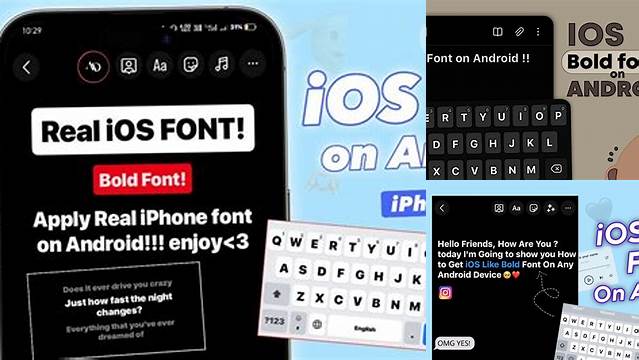
Android: Get IOS Bold Fonts Free!
Hey guys! Ever admired the sleek, bold fonts on your friend's iPhone and wished you could rock that same look on your Android device? Well, you're in luck! This article is your ultimate guide to iOS bold font download for Android free. We'll dive deep into the world of font customization, exploring how you can easily install and apply iOS-style bold fonts on your Android phone, all without spending a dime. Forget those clunky interfaces and confusing tutorials; we're keeping it simple, straightforward, and, most importantly, free! So, buckle up, because we're about to transform your Android's appearance with some seriously stylish typography. Let's get started with everything you need to know about iOS bold font download for Android free and get your phone looking fresh!
Why iOS Bold Fonts on Android? Aesthetics and More!
Alright, let's be real. The visual appeal of a device is a big deal. And those clean, crisp, bold fonts that iOS uses? They're undeniably attractive. But why else would you want to bother with an iOS bold font download for Android free? Well, beyond just the aesthetics, there are some practical reasons too. First, it's about personalization. Your phone is an extension of you, right? Customizing the font is a great way to express your style and make your device feel truly yours. It's like choosing the perfect outfit for your digital self! Also, bold fonts can significantly improve readability, especially for those of us who might have less-than-perfect eyesight or just prefer a clearer display. The bolder strokes make text easier to distinguish, reducing eye strain and making your phone more user-friendly overall. And let's not forget the sheer satisfaction of having a unique look! It's a conversation starter, a small detail that sets your phone apart from the sea of identical Android devices. With an iOS bold font download for Android free, you're essentially giving your phone a mini-makeover. It's like going from drab to fab with a simple font change. Plus, this isn't just about aesthetics; it's about creating a more pleasant and efficient user experience. A well-chosen font can make everything from reading emails to browsing the web feel smoother and more enjoyable. The beauty of having an iOS bold font download for Android free is that you're getting all these benefits without any cost. You don't need to spend money on premium themes or launchers; a simple font installation can do the trick. So, whether you're a design enthusiast, someone who values readability, or just a person who wants to add a touch of flair to their device, this guide on iOS bold font download for Android free has got you covered. You are now ready to change how the world perceives you.
Conclusion: Bold Fonts, Beautiful Android!
Well, guys, that's a wrap! You've now got the knowledge and tools to get that gorgeous iOS bold font download for Android free look on your Android device. Whether you chose the simple route of using custom font apps, the advanced customization of a custom launcher, or the power of rooting your device, the goal is the same: to personalize your device and make it truly your own. Remember, the best method is the one that fits your comfort level and technical skills. Don't be afraid to experiment and try different options until you find the perfect combination of fonts, themes, and customization. The world of Android customization is vast and exciting, and with a little effort, you can transform your phone into a stylish and unique device. So go ahead, explore the options, and enjoy the process of making your Android phone a reflection of your style and personality. The bold look is within your reach. Go out there and get your iOS bold font download for Android free today and enjoy!